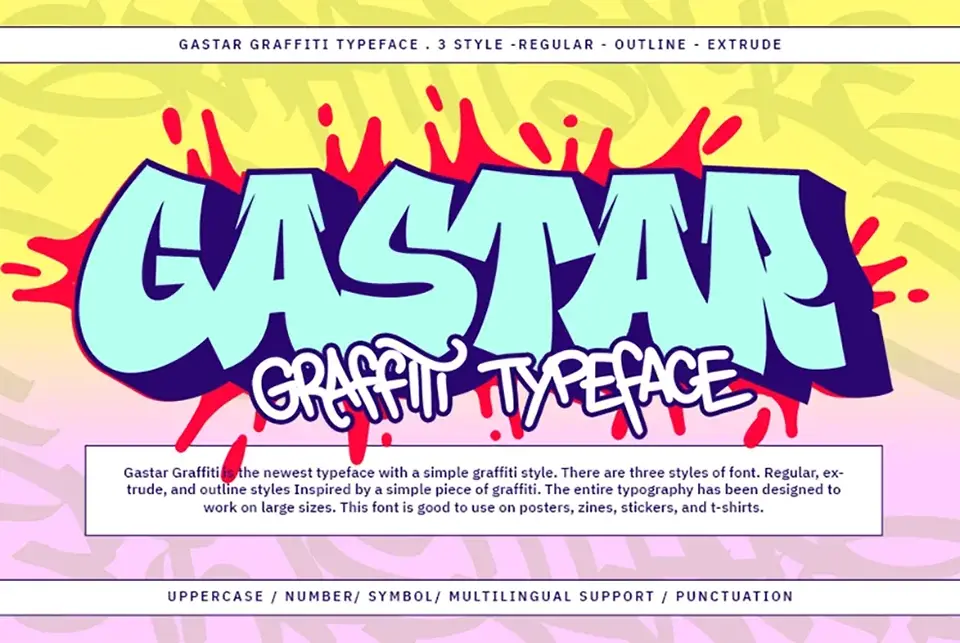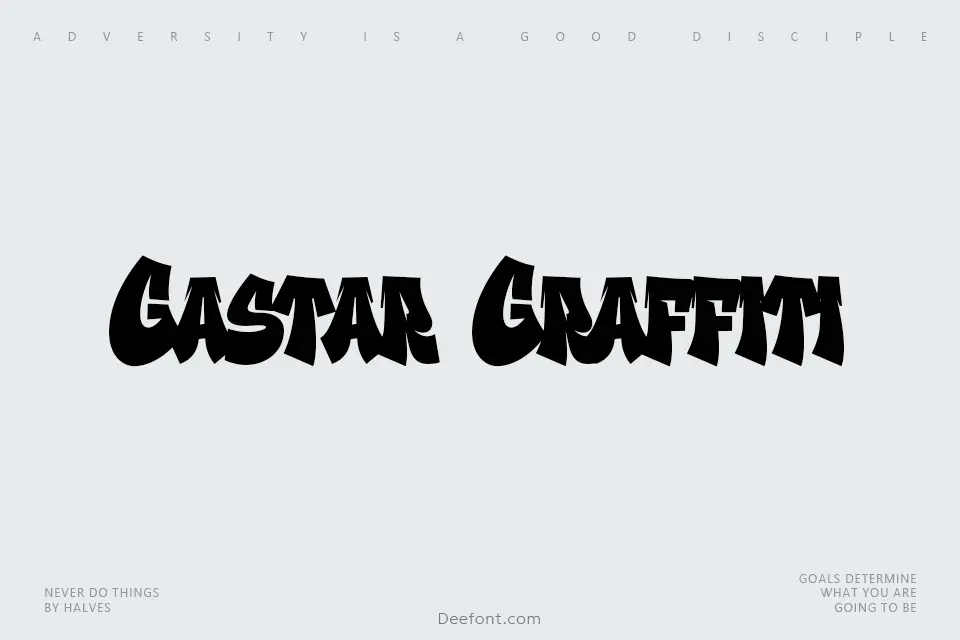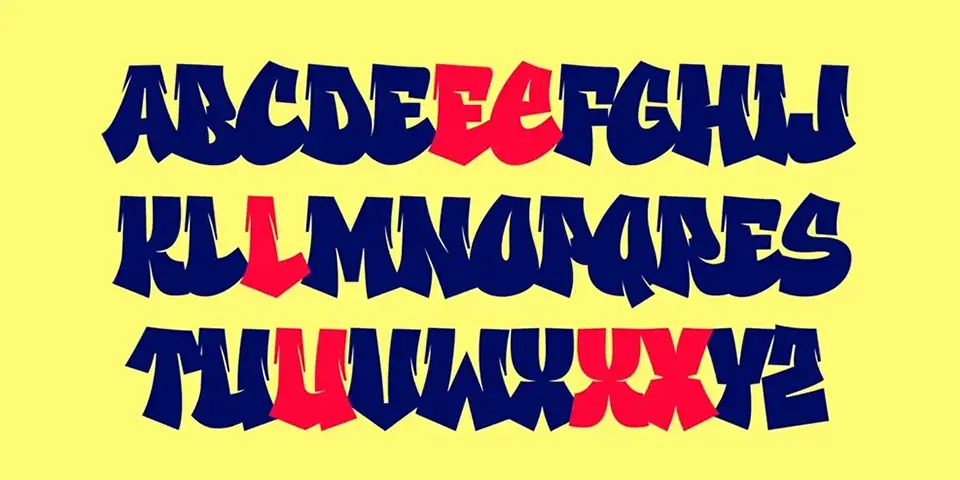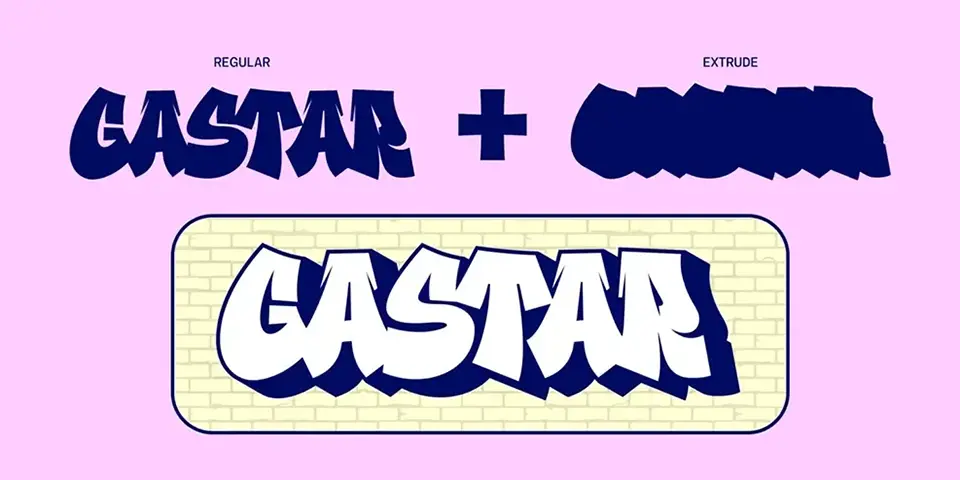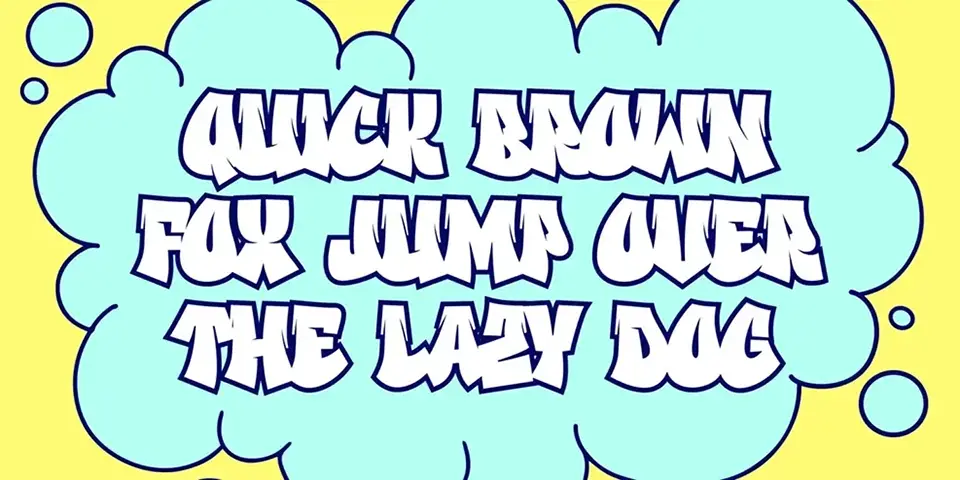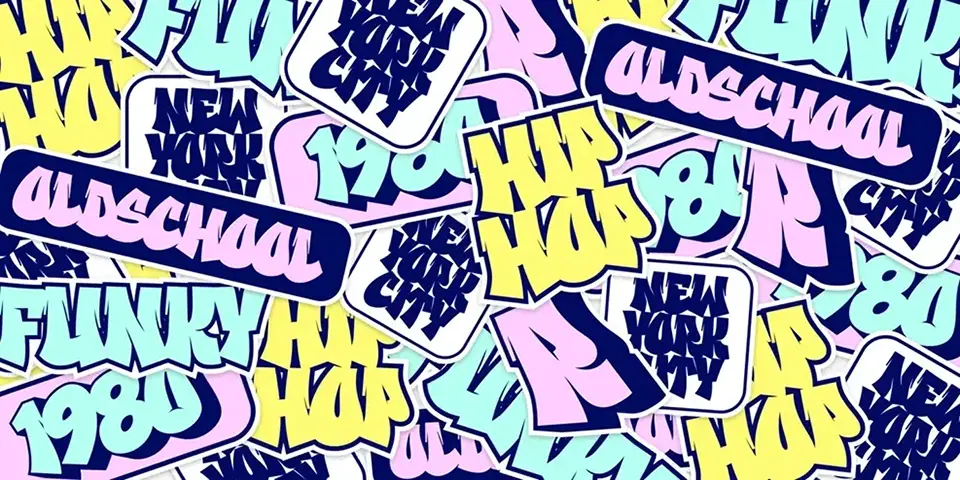
Gastar Graffiti Font
Gastar Graffiti is a bold and expressive graffiti display font inspired by street art and urban vibes. Featuring three distinct styles—Regular, Outline, and Extrude—this typeface captures the dynamic energy of authentic graffiti with thick outlines and angular letterforms. Perfect for posters, album covers, branding, t-shirts, and creative projects that demand a strong urban aesthetic.